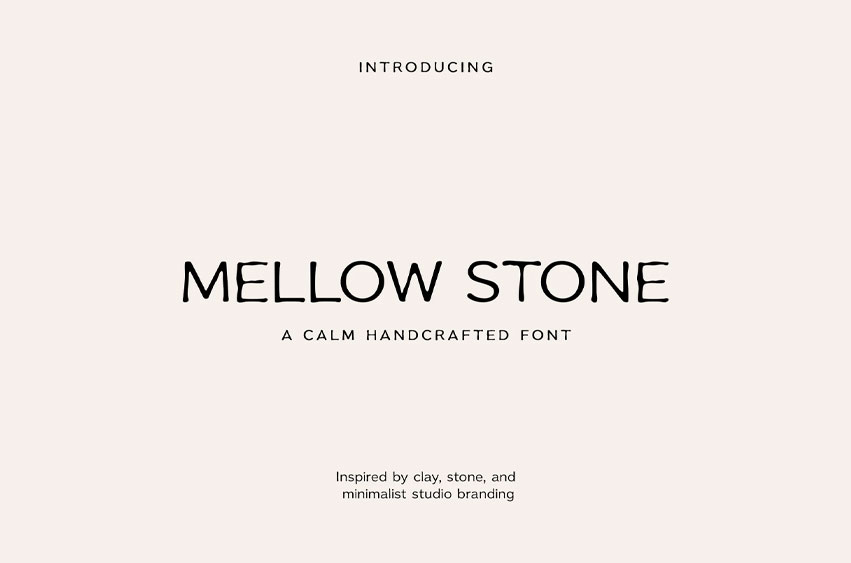
Mellow Stone Font is a calm handcrafted font with soft organic letterforms, inspired by natural textures, earthy branding, pottery studios, jewelry boutiques, and slow-living aesthetics.